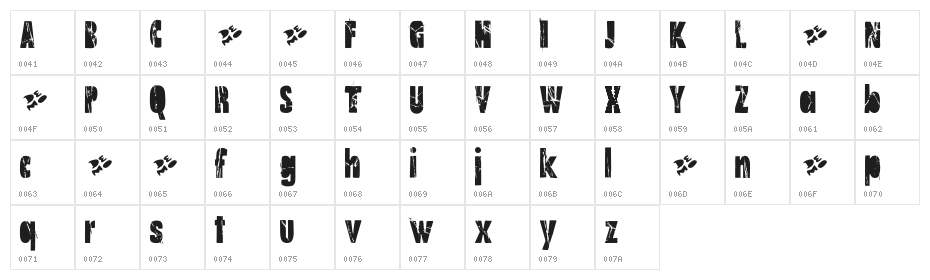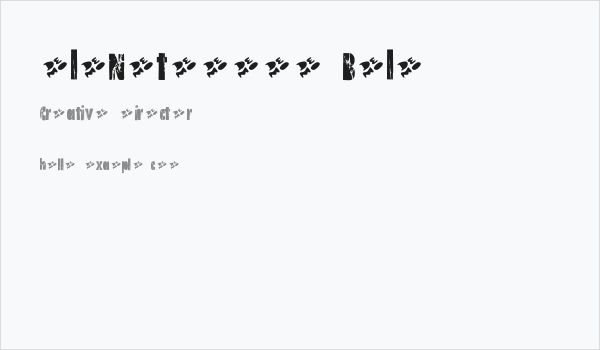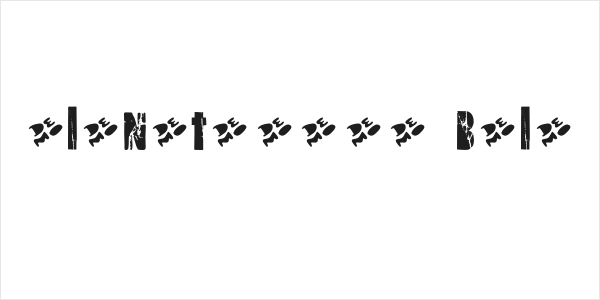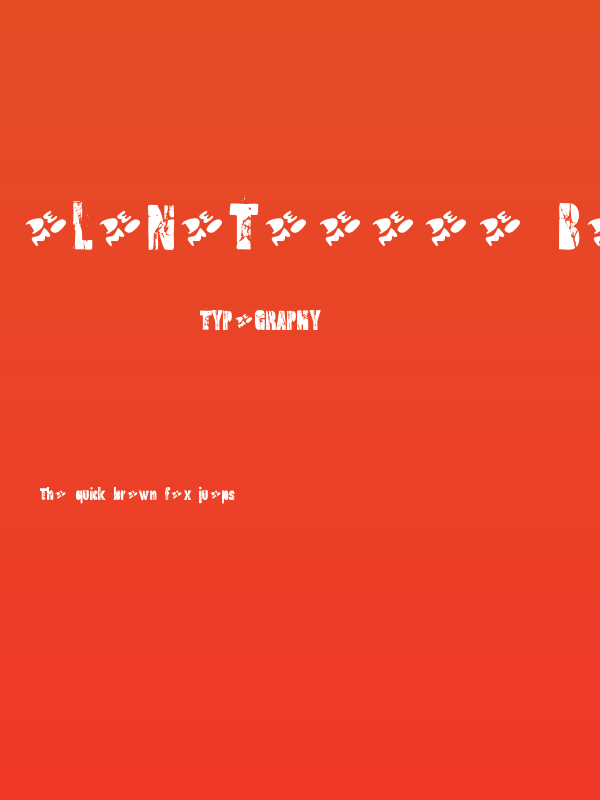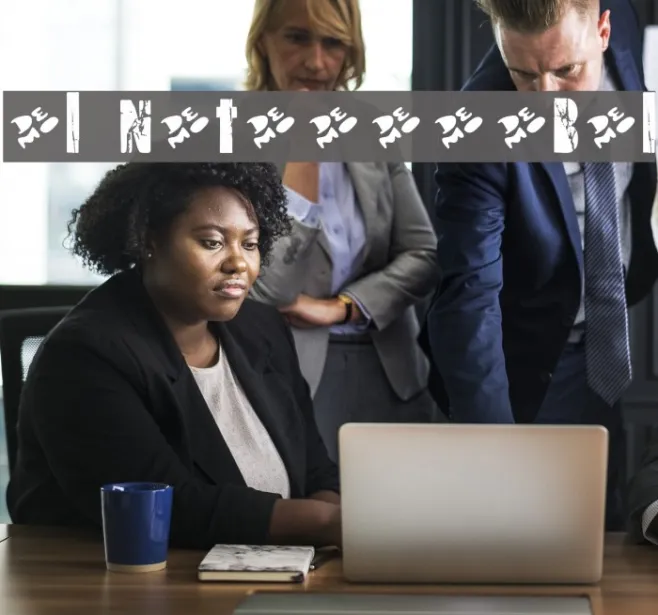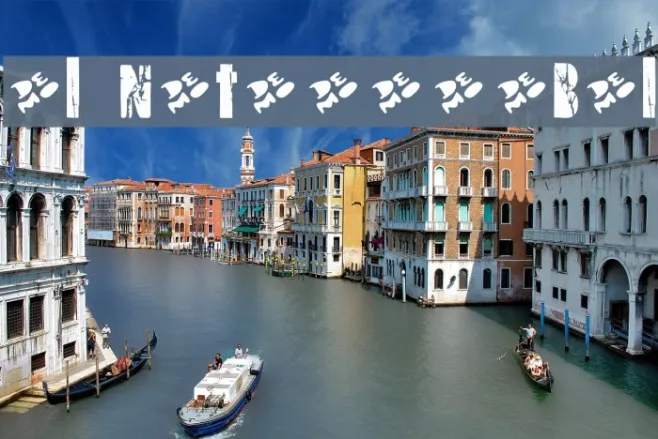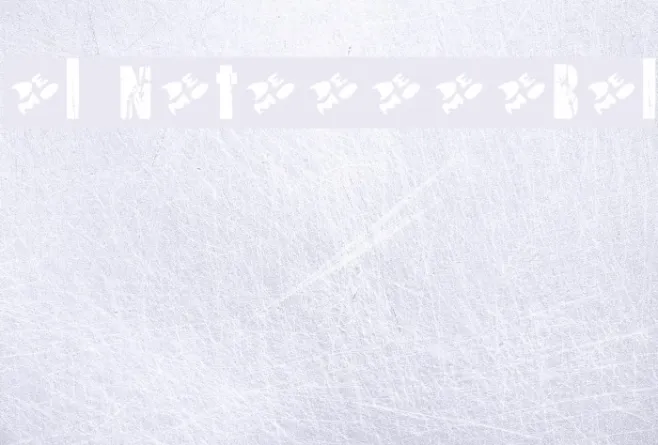
OldNoteDemo-Bold Font
OldNoteDemo-Bold Description
This font features a bold, distressed style with a grunge texture that gives it a rugged and worn appearance. The characters have a blocky, robust structure, making them highly visible and impactful. The distressed effect varies across the letters, adding a unique, handcrafted feel. The uppercase and lowercase letters maintain a consistent style, with the uppercase being slightly taller and more pronounced. Numbers and special characters follow the same distressed theme, ensuring uniformity across all glyphs.
| Proposed Projects | Ideal for projects requiring a vintage or edgy aesthetic, such as posters, album covers, or branding for alternative or rock-themed businesses. |